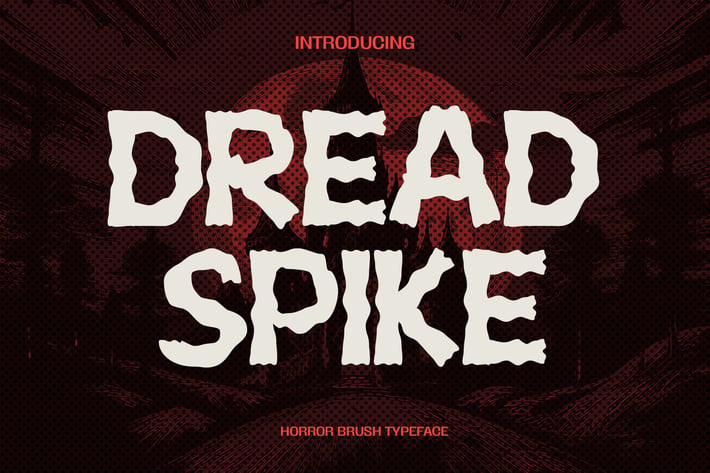
Dreadspike - Horror Brush Font
Dreadspike - Horror Halloween Brush Poster Font
is a premium Horror Halloween Brush Poster font designed to bring bone-chilling suspense and haunting allure to your branding and design projects. Crafted with modern grunge-infused brush strokes and eerie textures, this font offers a sleek, stylish, and professional touch for logos, marketing materials, packaging, and digital applications.
Whether you’re working on a horror-themed event, Halloween party, or spooky movie poster, Dreadspike will give your design a macabre edge. It’s ideal for use in high-impact horror posters, chilling logos, and eerie display designs.
Font Features:
Clear and Versatile Design: Offers easy readability with a modern style that stands out in both digital and print mediums.
Complete Character Set: Uppercase and lowercase characters, numbers, punctuation, and symbols.
OpenType Features: Access alternates, ligatures, and unique stylistic sets to customize your design.
Dreadspike combines dripping effects and jagged edges to create a striking visual impact while maintaining clarity. Whether you are designing for horror film posters, haunted house branding, or spine-tingling event invitations, this font adapts to your needs and enhances the visual appeal of your design.
Horror Event Branding: Set the tone for haunted parties and eerie gatherings.
Halloween Promotions: Perfect for posters, invitations, and seasonal marketing.
Movie and TV Posters: Create dramatic visuals for horror films and thrillers.
Creative Design Projects: Ideal for graphic design ventures that embrace a spooky aesthetic.
Custom Typography: Stand out with a distinctive, creepy look for your projects.